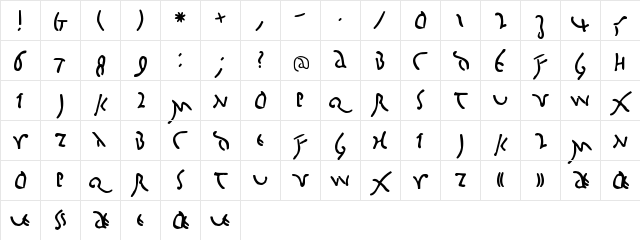
BigCaesar Regular
Design Context for BigCaesar Typeface
BigCaesar is a composed and adaptable typeface that performs quietly and consistently across a wide range of design contexts.